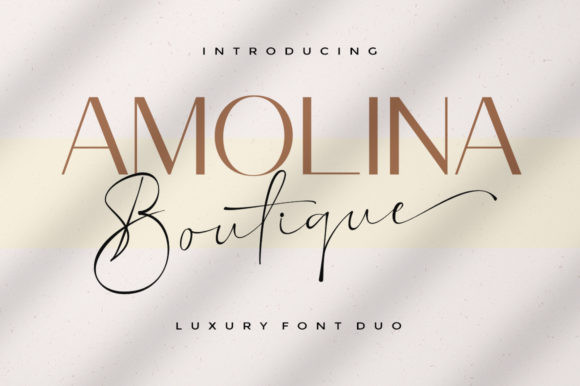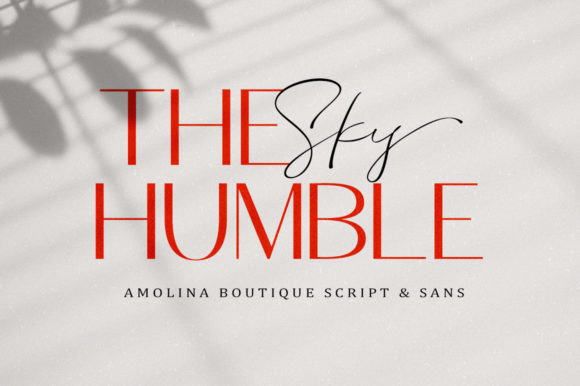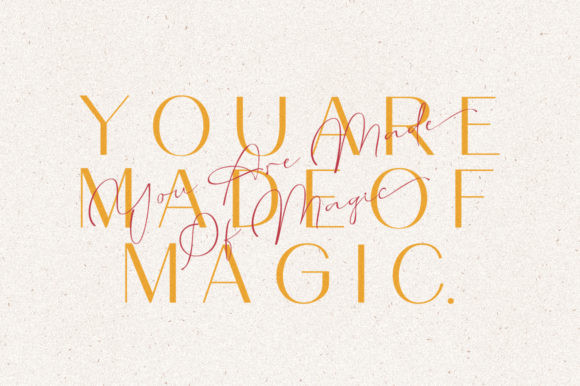
Amolina Boutique Font
Amolina Boutique is a spectacular duo font (sans serif and script). Incredibly versatile, this font fits a wide pool of designs, elevating them to the highest levels. Add this font to your favorite creative ideas and notice how it makes them come alive!